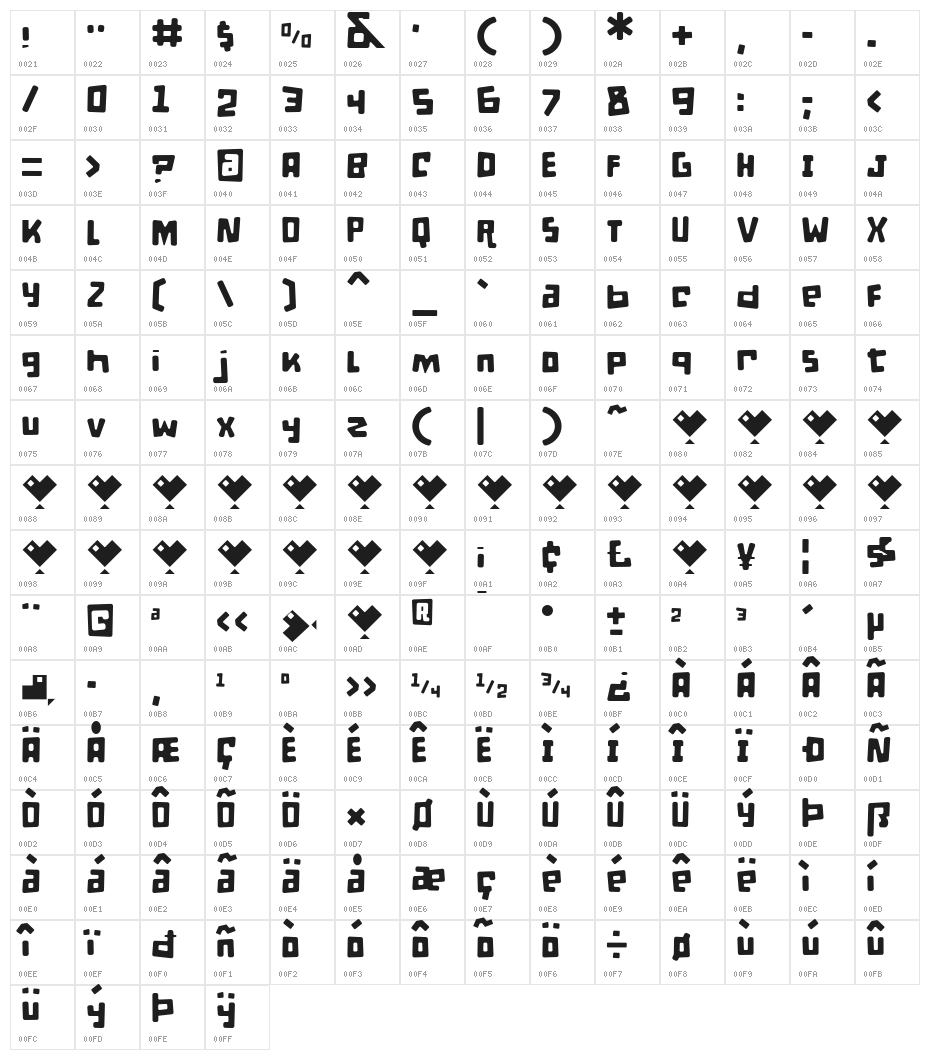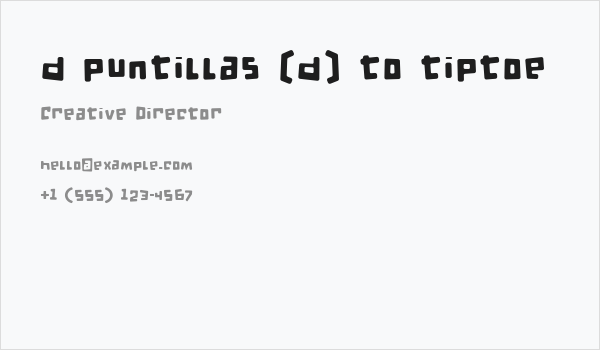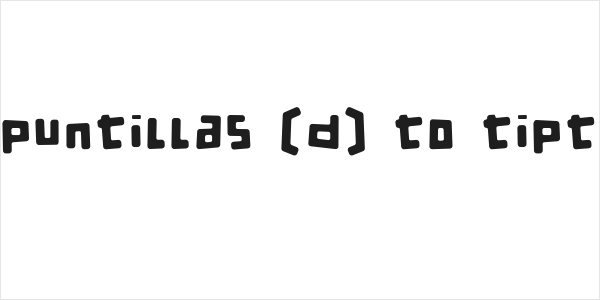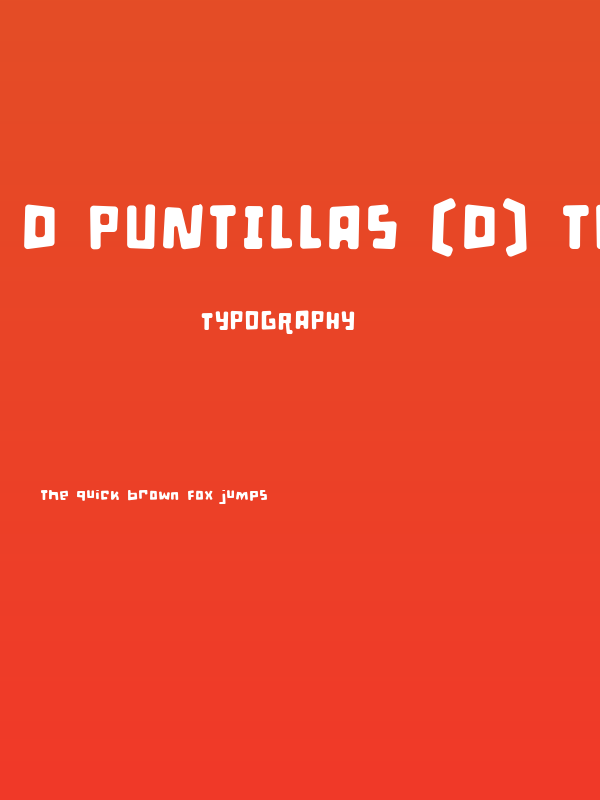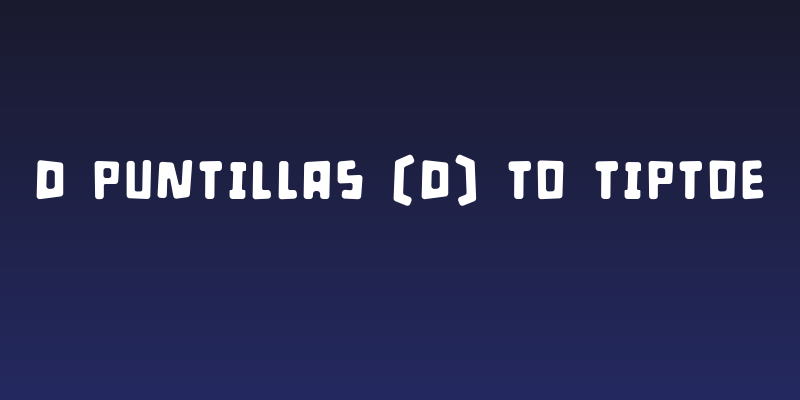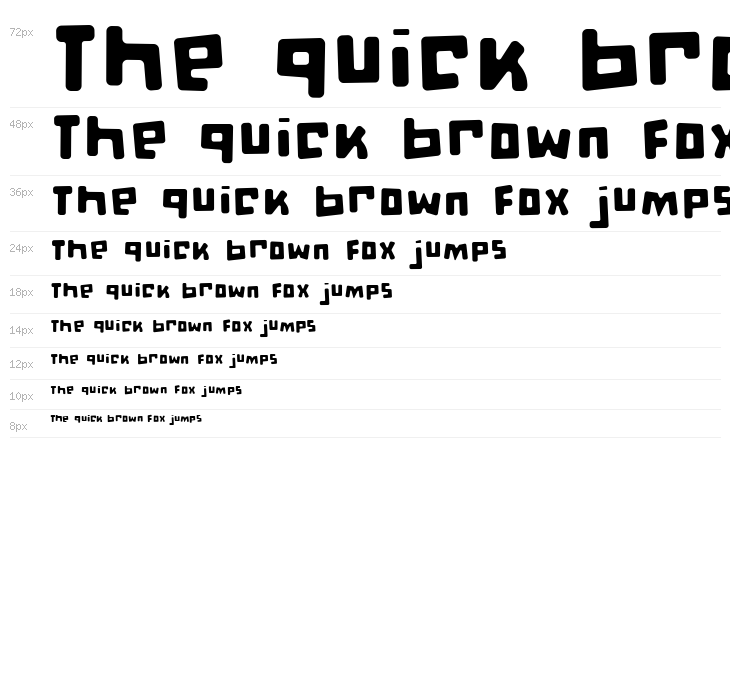
d puntillas [d] to tiptoe Font
d puntillas [d] to tiptoe Description
This font features a playful and bold design with a slightly irregular and hand-drawn appearance. The characters have a chunky, rounded form with a consistent thickness throughout, giving it a strong presence. The uppercase and lowercase letters maintain a uniform style, with some quirky elements like the tilted 'e' and the unique shape of the 'g'. The numbers are equally bold and maintain the same playful style. Special characters are included, adding versatility to the font. Overall, this font exudes a fun and informal vibe, making it suitable for creative and casual projects.
| Overall Style | Playful, Informal |
| Use Case | Headlines, Posters, Branding |
| Proposed Projects | Ideal for children's books, playful branding, posters, and creative digital content. |